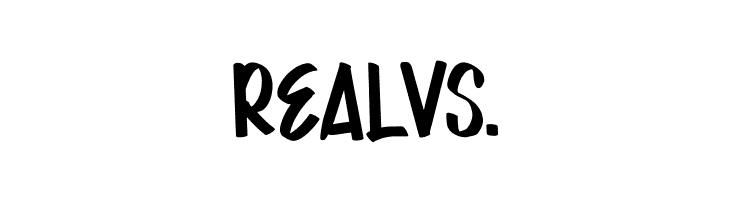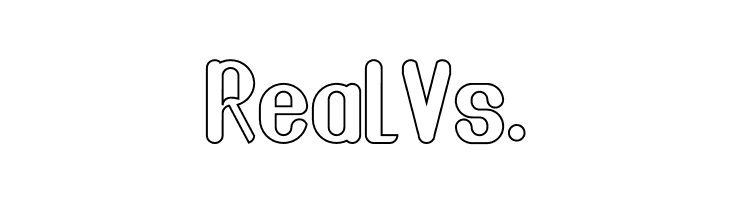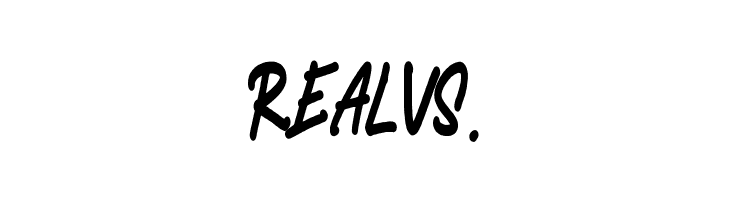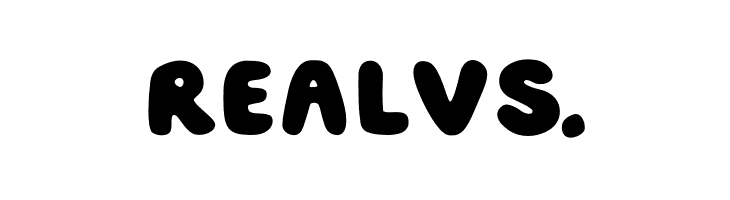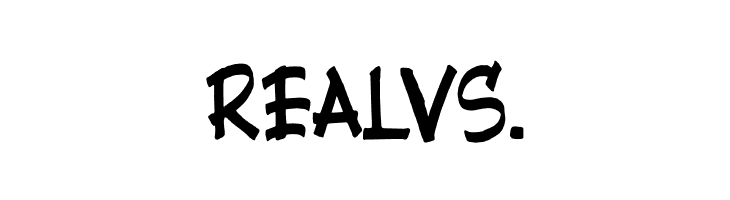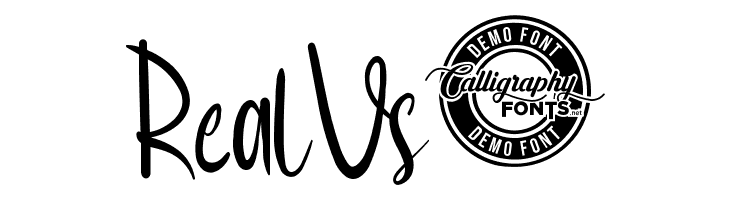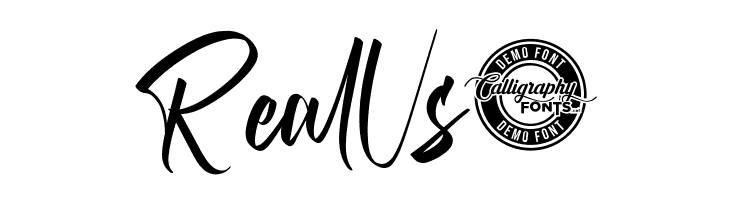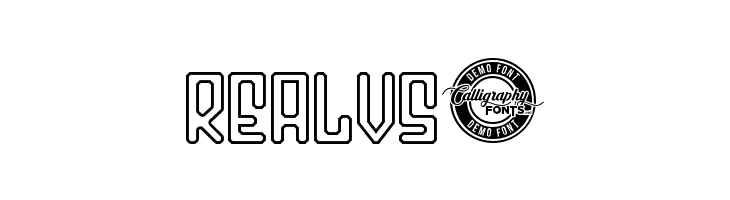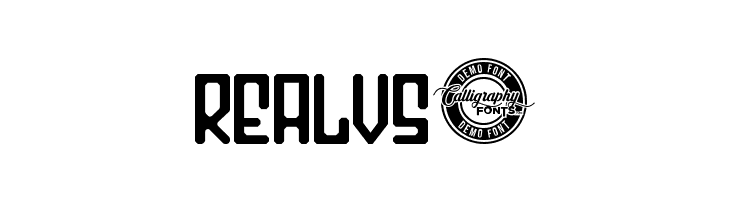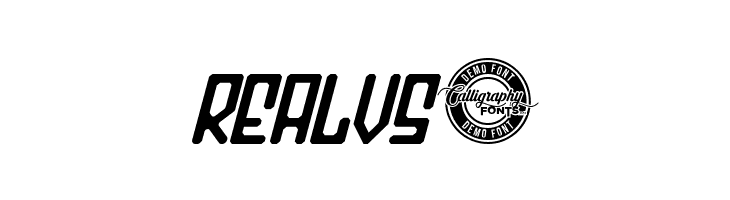
A bold, hand-drawn font with a rugged, graffiti-inspired aesthetic.
A bold, playful font with thick, rounded strokes and a whimsical touch.
A tall, narrow, handwritten script with playful, casual energy.
A playful, handwritten font with rounded, dynamic characters.
A bold, Gothic-inspired font with sharp angles and thick strokes.
A bold, flowing script font with dynamic and elegant letterforms.
A playful, hand-drawn font with tall, narrow characters and a bold outline.
A playful, handwritten font with a casual and friendly appearance.
A playful, rounded font with bold, smooth curves and consistent design.
A bold, italicized script font with a modern and dynamic style.
A playful, modern outline font with bold, rounded letterforms.
Energetic, cursive handwritten script with tall, narrow forms and high contrast.
A decorative script font with elegant loops and flowing letterforms.
A classic serif font with bold strokes and elegant serifs.
A bold, jagged font with sharp angles and an edgy, dynamic style.
A playful, bold, and handwritten-style font with rounded, irregular characters.
A bold, playful script font with a brush-like texture.
A bold, handwritten-style font with dynamic and playful characteristics.
A bold, playful handwritten font with rounded, irregular characters.
A bold, high-contrast font with a modern yet classic style.
A bold, dynamic script font with elegant loops and modern flair.
A playful and elegant script font with a handwritten style.
A dynamic and expressive script font with flowing, cursive letterforms.
A bold blackletter font with sharp, angular lines and dramatic flourishes.
A bold, dynamic script font with fluid, cursive letterforms and medium contrast.
A modern, geometric font with rounded edges and consistent stroke width.
A modern sans-serif font with a unique sliced effect for a dynamic look.
A modern, sleek font with elongated, narrow characters and a clean aesthetic.
A graceful and flowing script font with elegant, elongated letterforms.
Playful handwritten sans-serif with tall, narrow letters.
A dynamic script font with fluid strokes and a hand-drawn appearance.
A cursive, handwritten-style font with elegant, flowing characters.
A bold, angular, and sketch-like display font with a dynamic and artistic style.